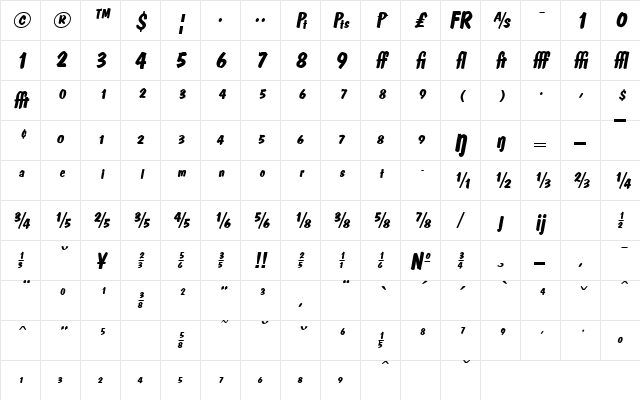
PedroExp Bold Italic
Design Context for PedroExp
PedroExp is a composed and adaptable typeface that performs quietly and consistently across a wide range of design contexts. The slanted form adds forward momentum and visual energy. Its bold stroke weight gives it real presence on the page.
Pro Tip: Use PedroExp for emphasis, pull quotes, and subheadings where its slanted energy can add rhythm to the layout.